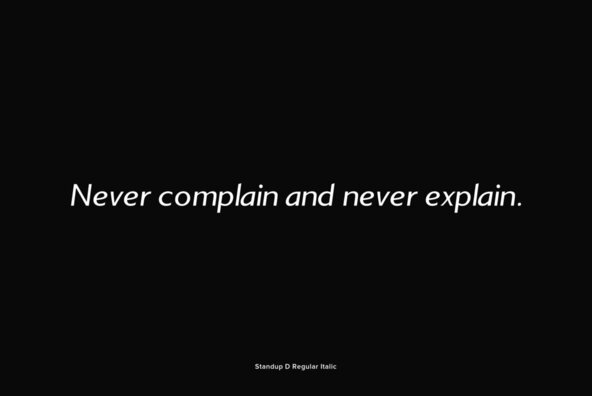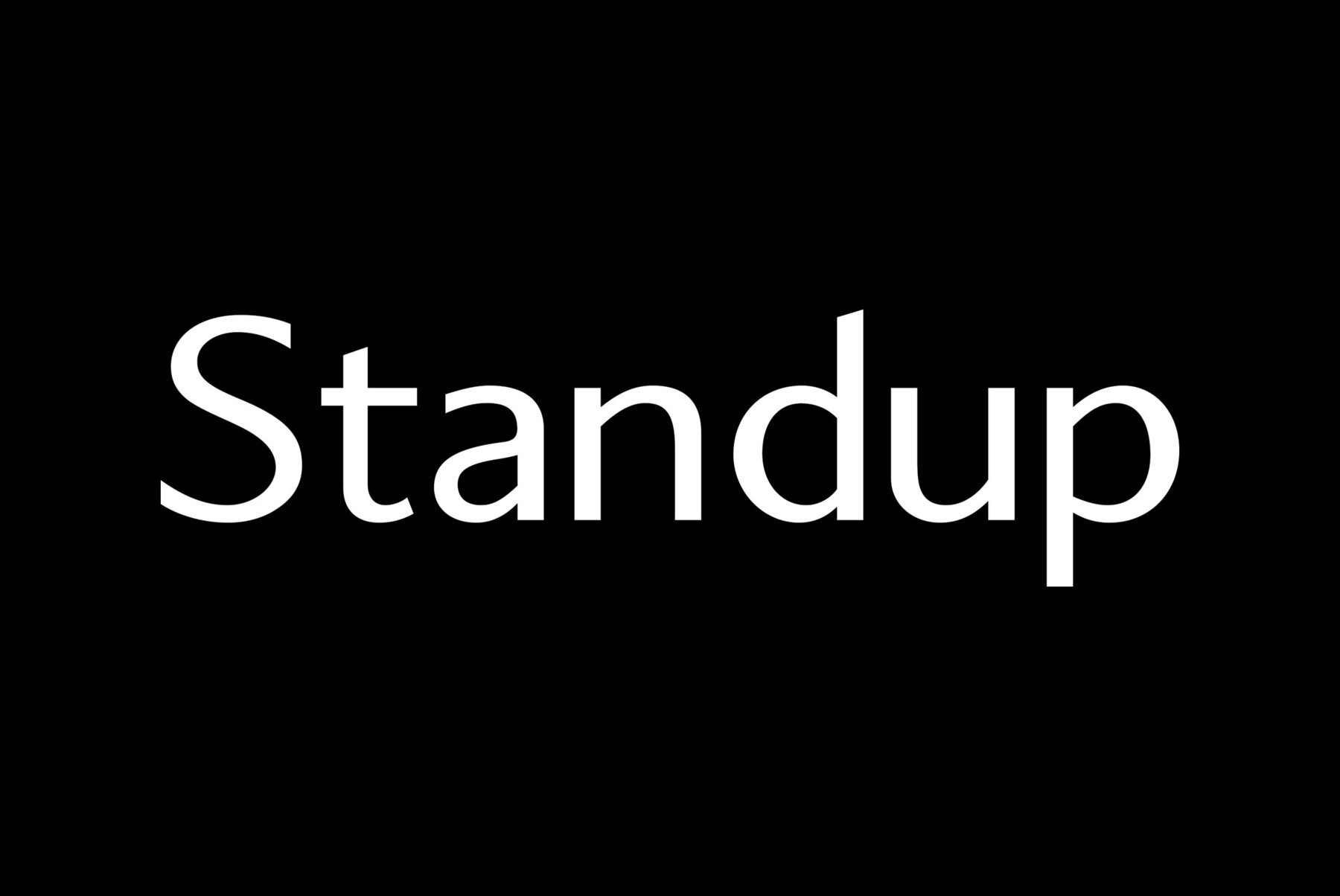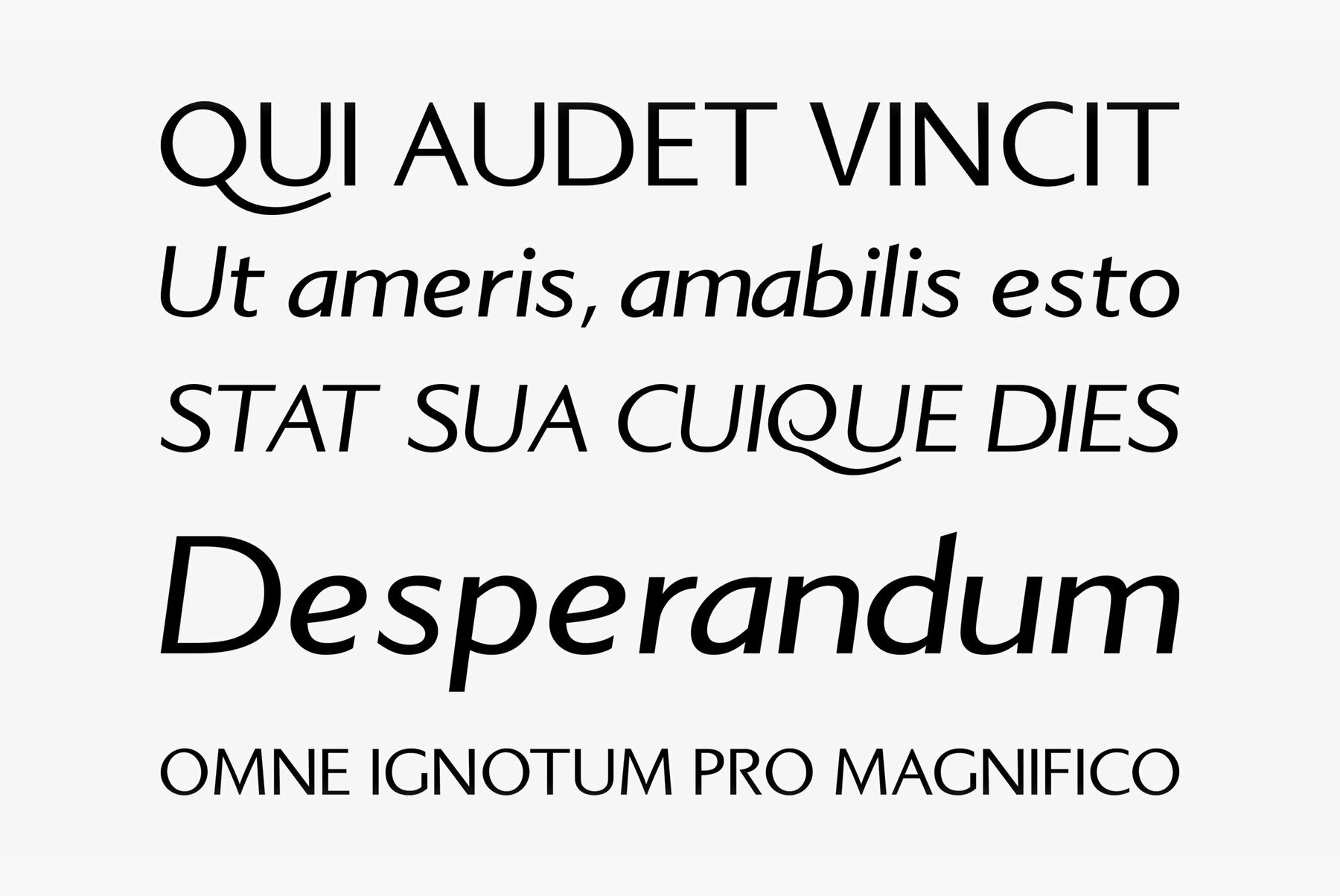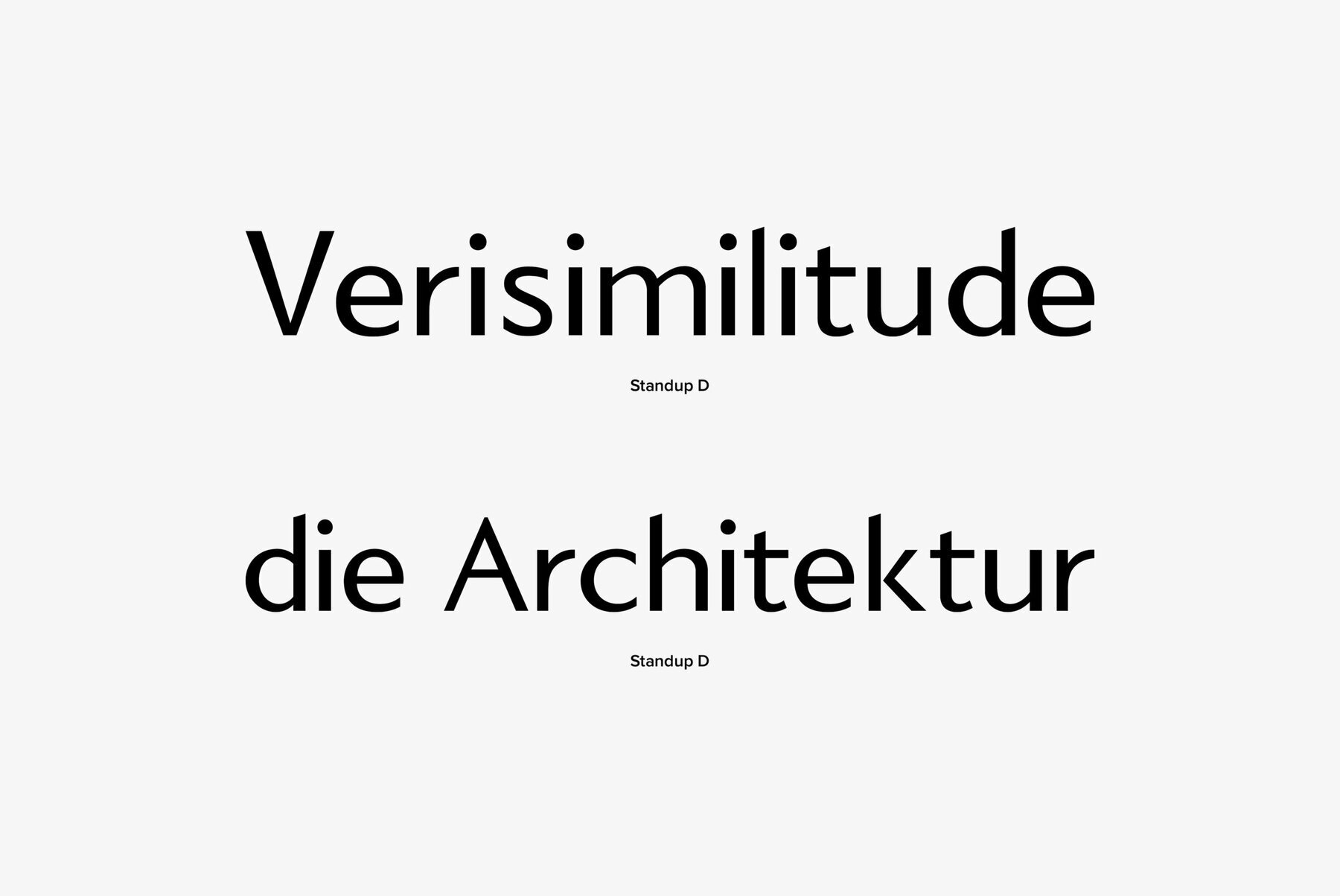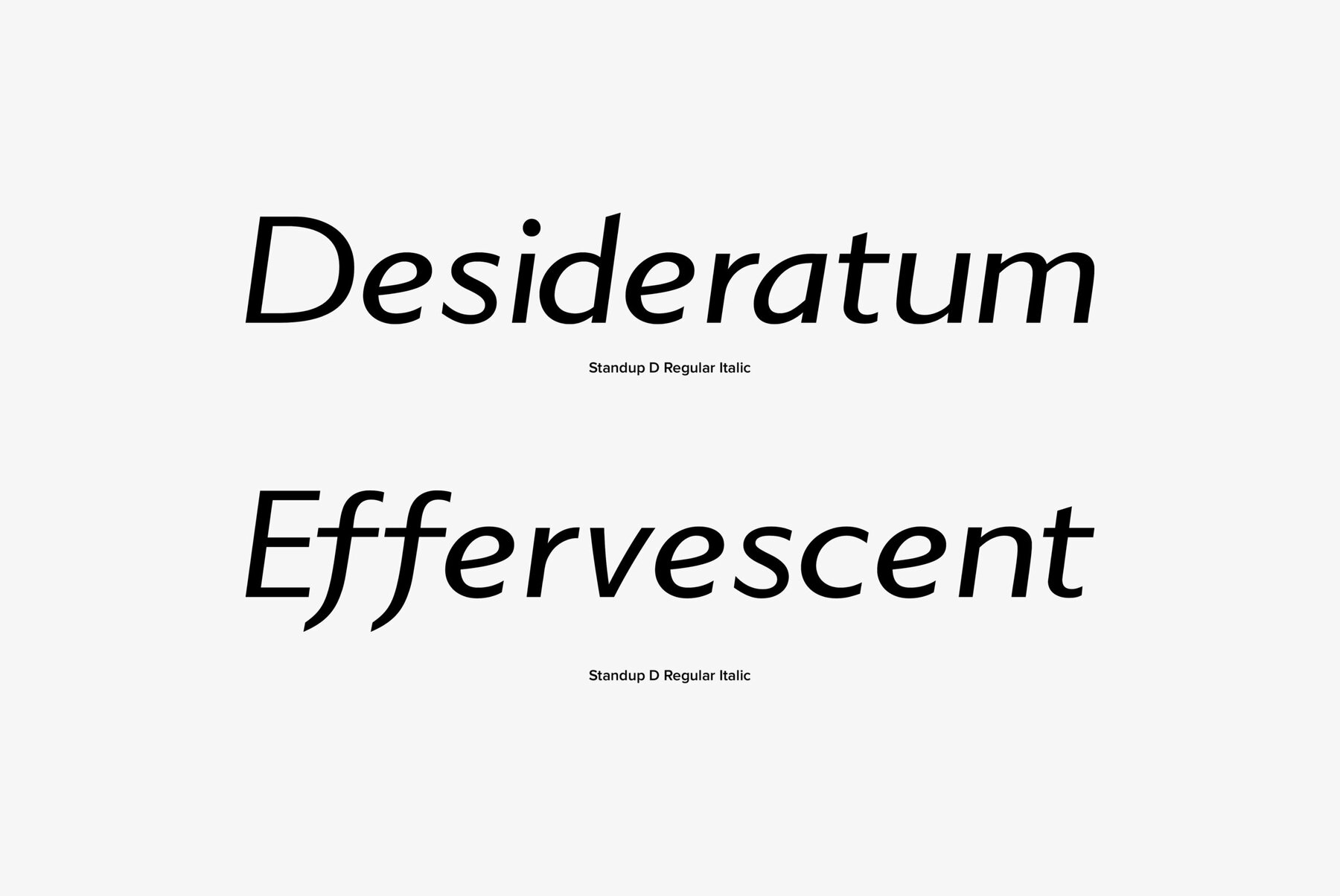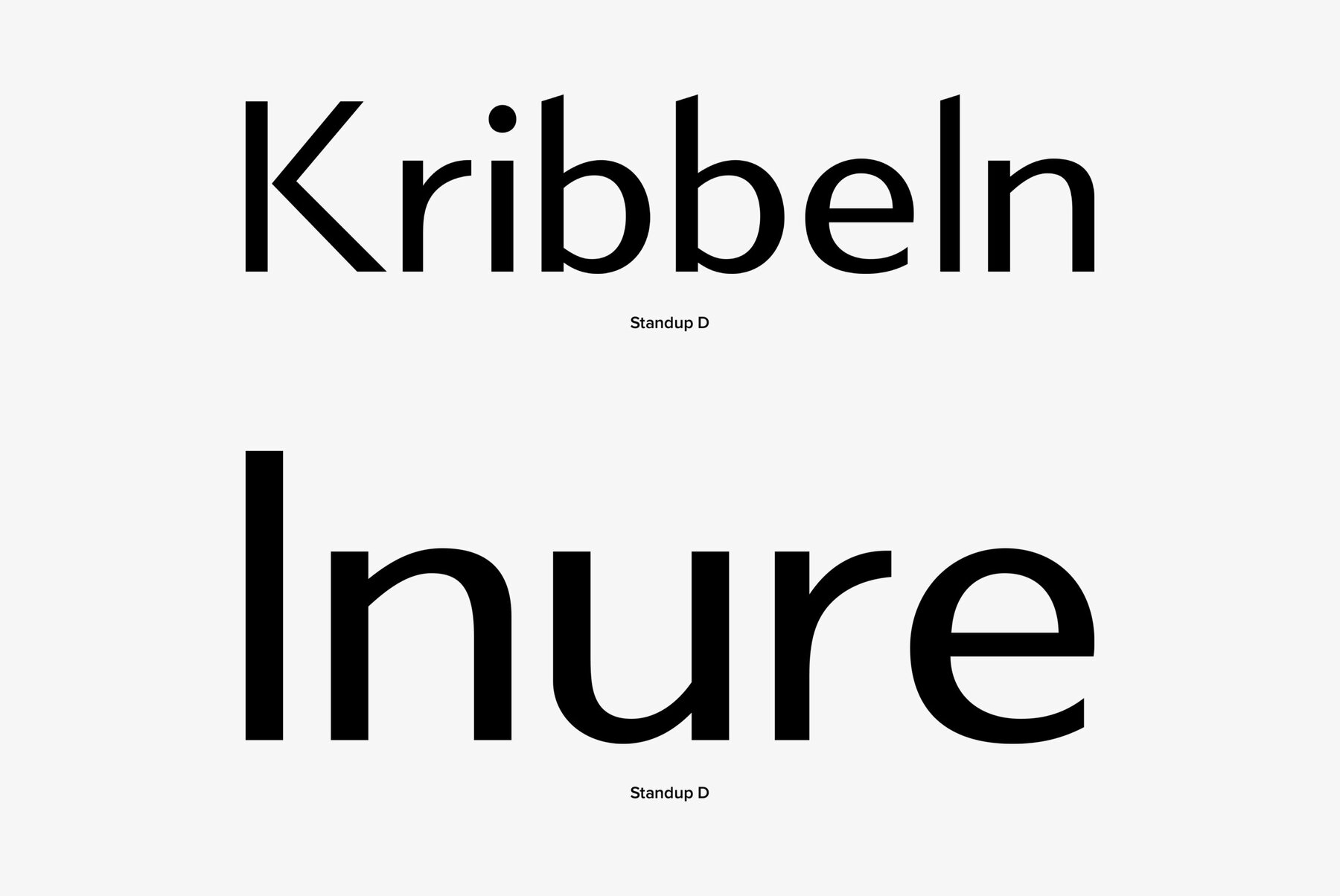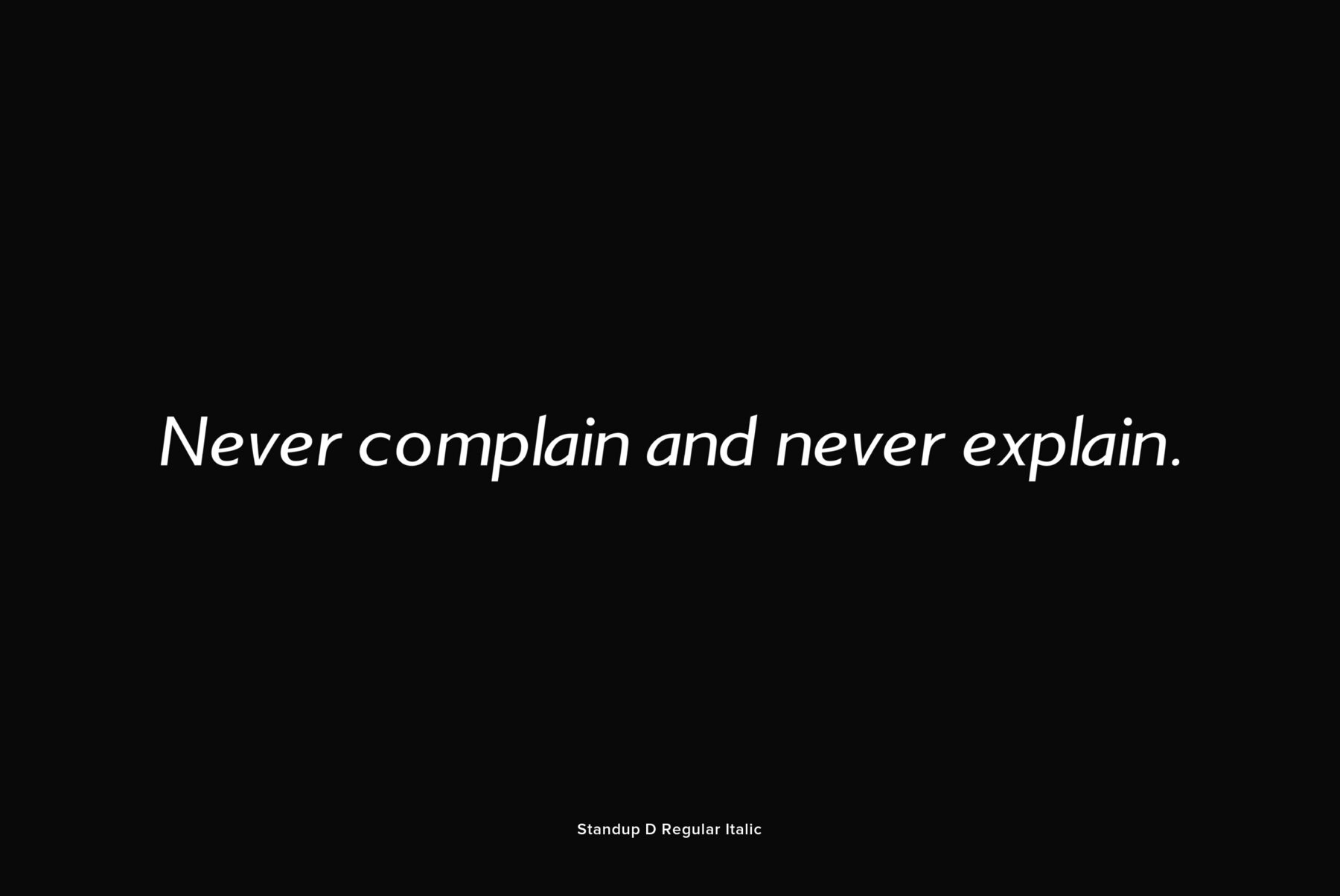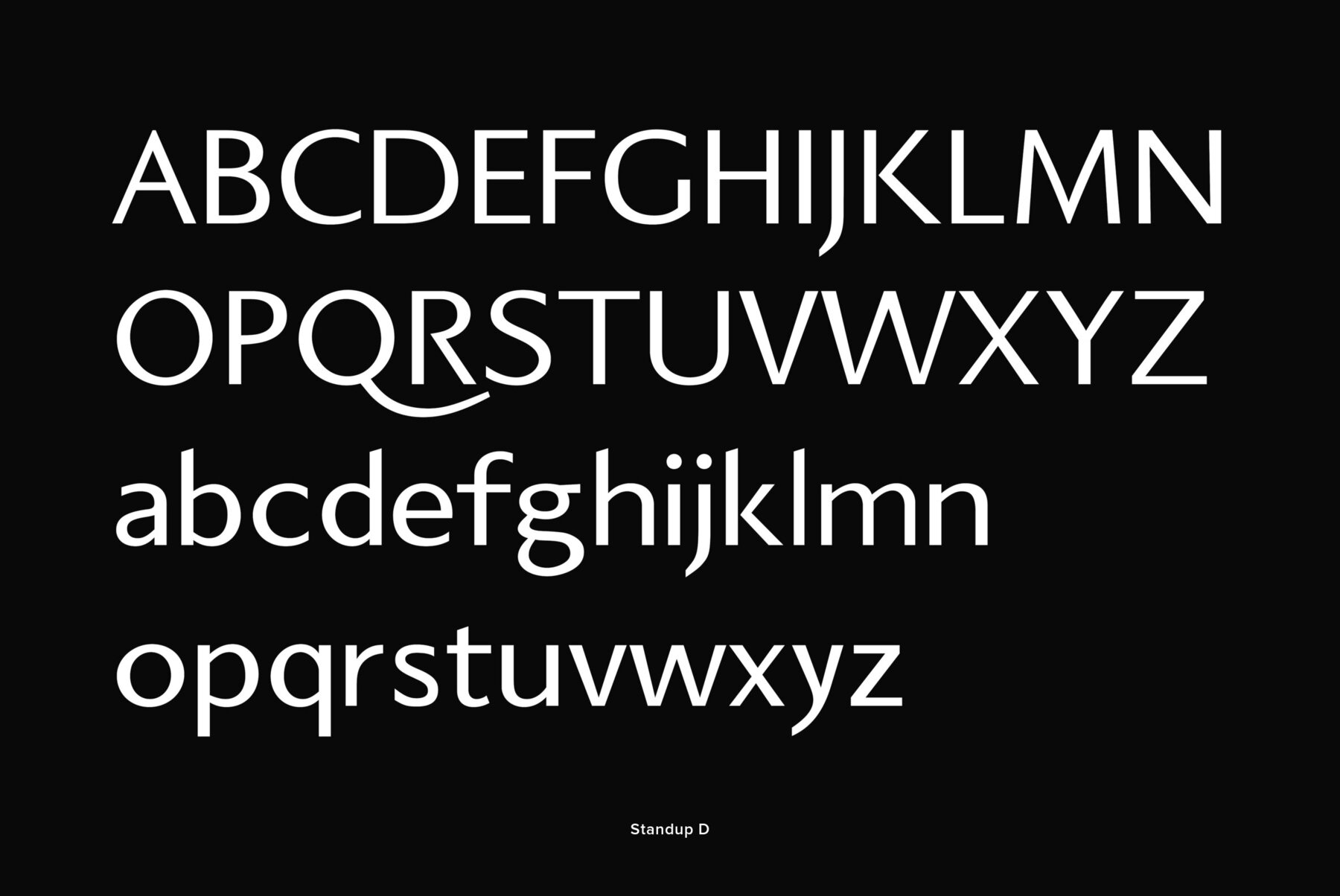
Standup
Standup is a clean sans-serif font that was designed by Jens Weigel in 2004. The Standup family contains three weights, including an interesting italic version (Regular, Italic, SmallCaps).